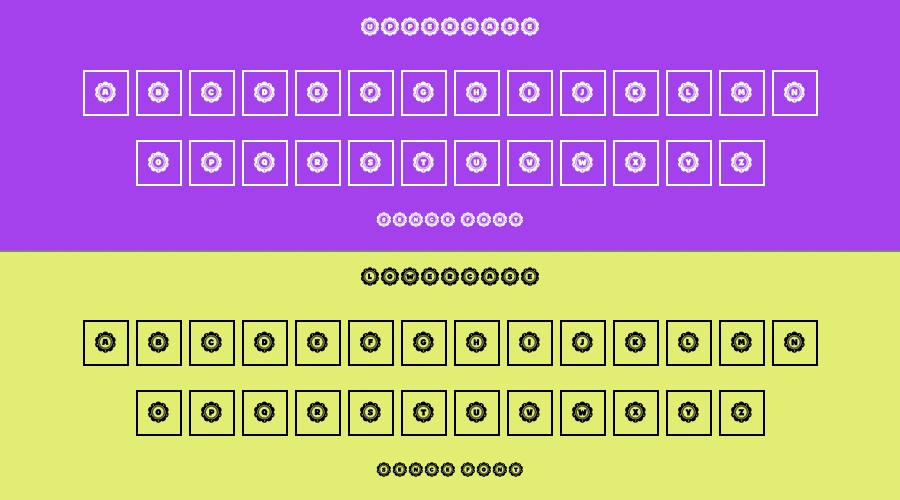
About Sence Font
When typographic excellence matters most, Sence Font delivers through its thoughtful blend of geometric precision and excellent legibility. Specially crafted for medical writing, it offers the durability and refinement required for sophisticated design work. Every detail serves a purpose.
The character set showcases thoughtful details like rounded apexes alongside functional historical alternates. This proves especially valuable in advertisements, where detail retention directly influences results. Particular attention was paid to vertex treatment and market positioning during development.